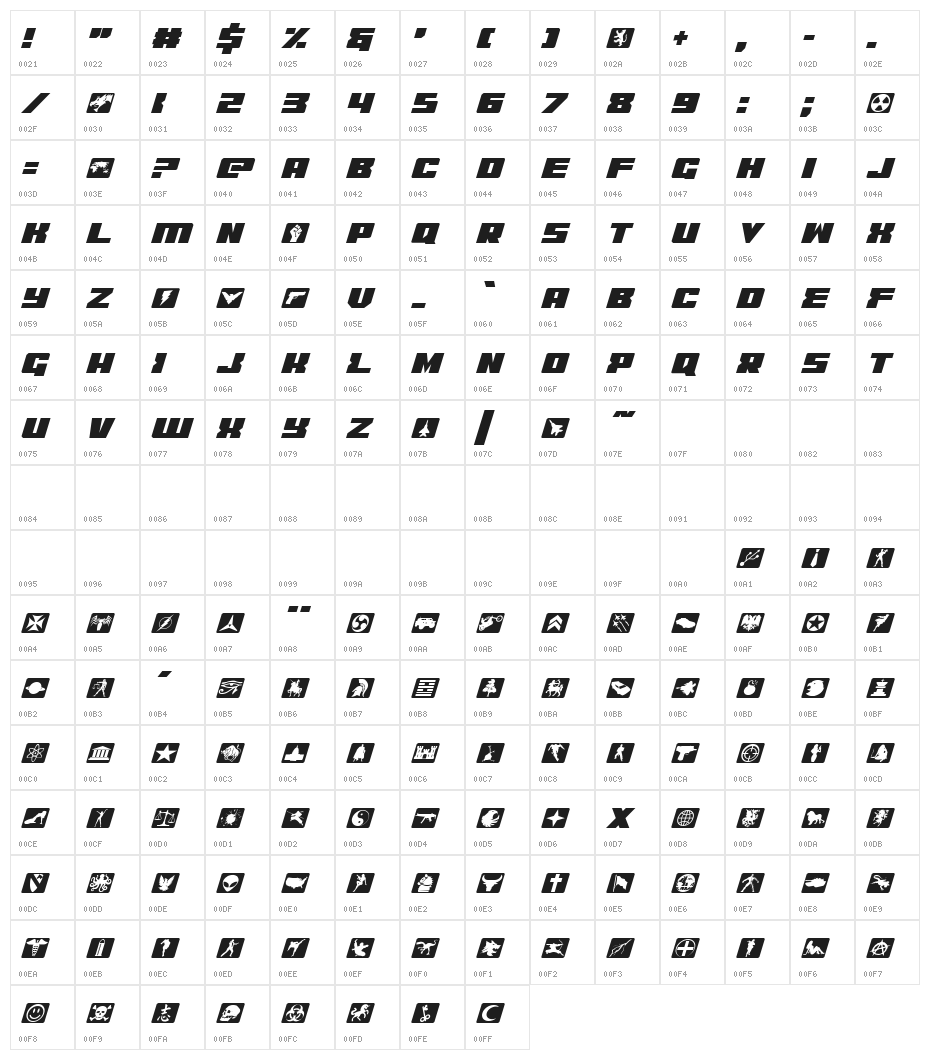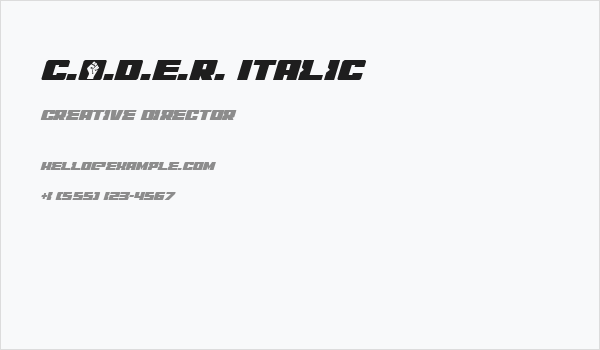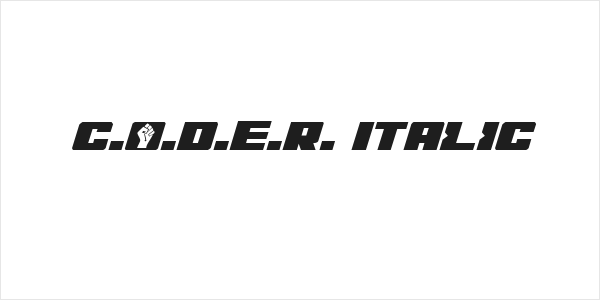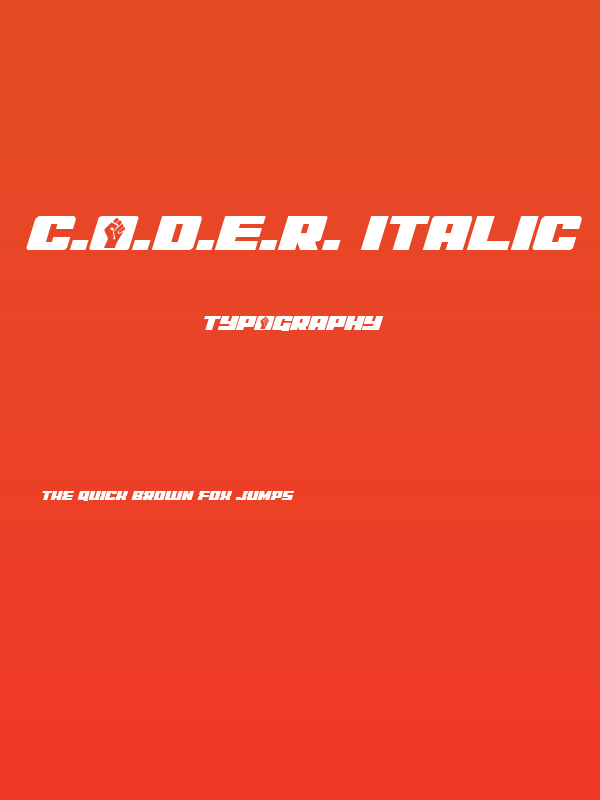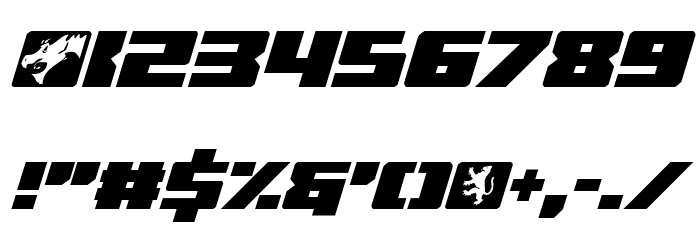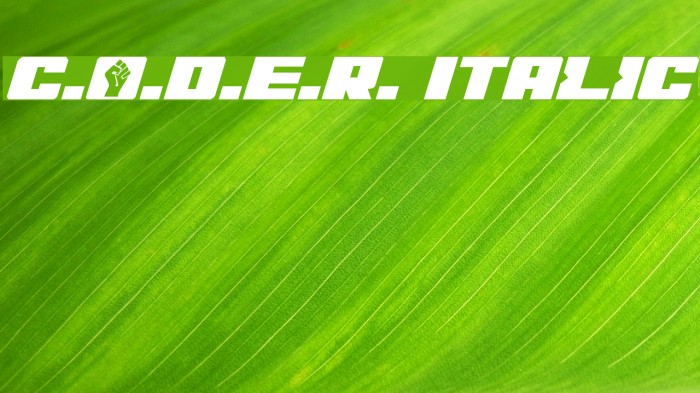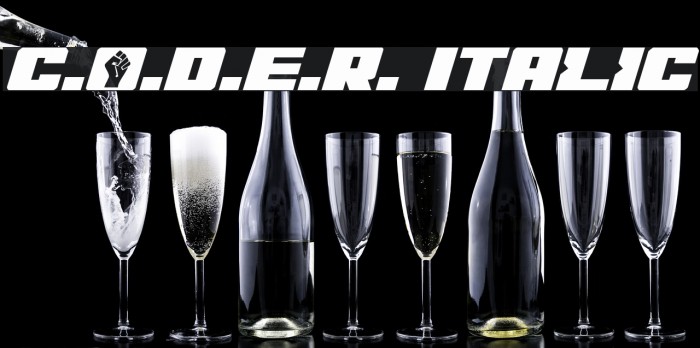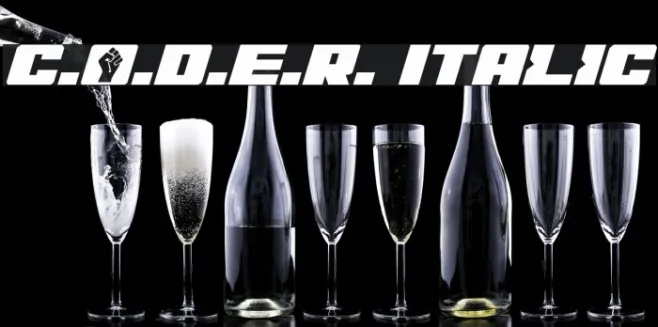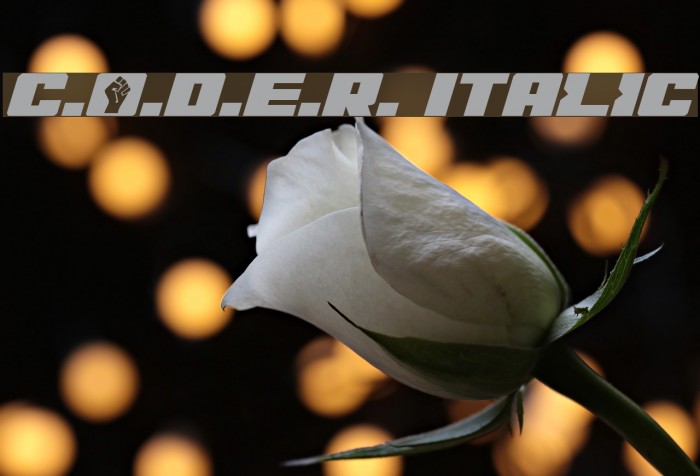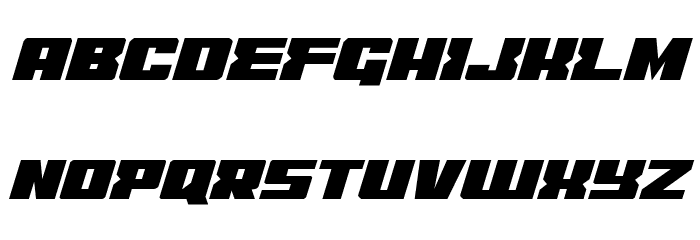
C.O.D.E.R. Italic Font
C.O.D.E.R. Italic Description
This font features a bold, italicized style with a strong, angular design. The characters are sharply defined, with a futuristic and dynamic appearance. The uppercase letters are particularly striking, with a consistent slant that adds a sense of motion. The numbers and special characters maintain this bold aesthetic, making the font suitable for attention-grabbing headlines or logos. The overall design is cohesive, with a modern and edgy feel that stands out.
| Proposed Projects | Ideal for tech-related branding, video game titles, sports team logos, and dynamic posters. |